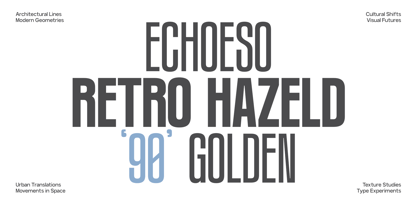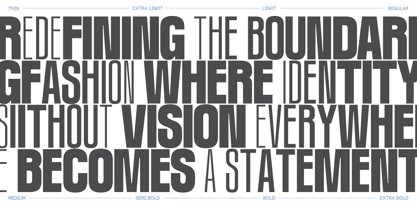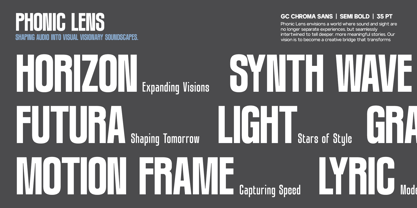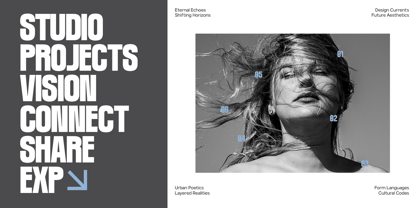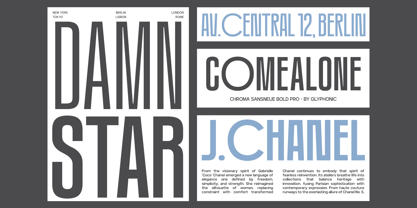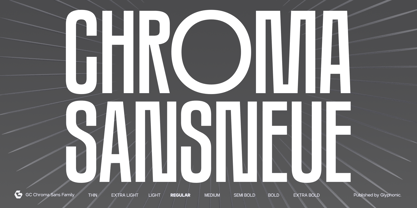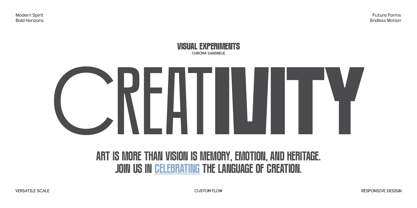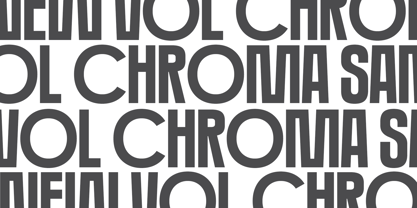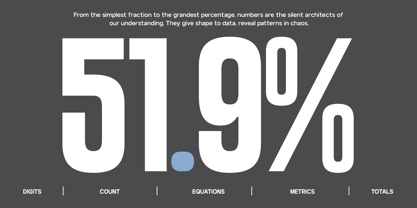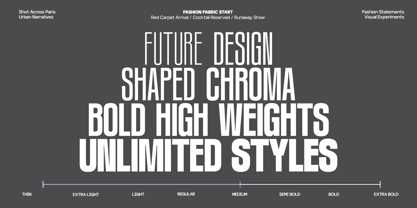
GC Chroma
by Onyx Studio
The GC Chroma Font Family was designed by Muhammad Hafiizh Solana and published by Onyx Studio. GC Chroma contains 8 styles and family package options. More about this family
GC Chroma — Condensed Sans Family is a modern condensed typeface that combines precision, power, and versatility. Designed with sleek proportions and geometric clarity, it delivers a strong visual impact while maintaining refined readability across any medium. Crafted for designers who value efficiency and style, GC Chroma is ideal for editorial layouts, branding systems, posters, and digital interfaces. Its condensed structure allows for bold headlines and compact compositions without losing elegance or legibility. Balanced spacing, clean construction, and consistent rhythm make GC Chroma a timeless sans family that adapts effortlessly to modern design demands. Features: Uppercase & Lowercase Numbers & Punctuation Condensed Geometric Construction 8 Weights from Thin to Extra Bold Multilingual Support (170+ Languages) Bring precision, strength, and contemporary style to your typography with GC Chroma — Condensed Sans Family.
Designers: Muhammad Hafiizh Solana
Foundry: Onyx Studio